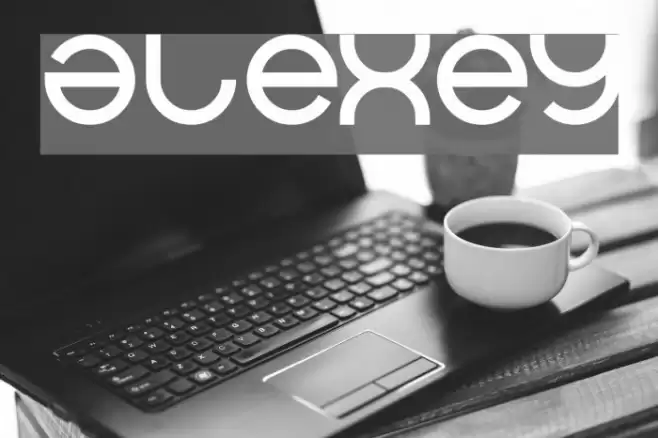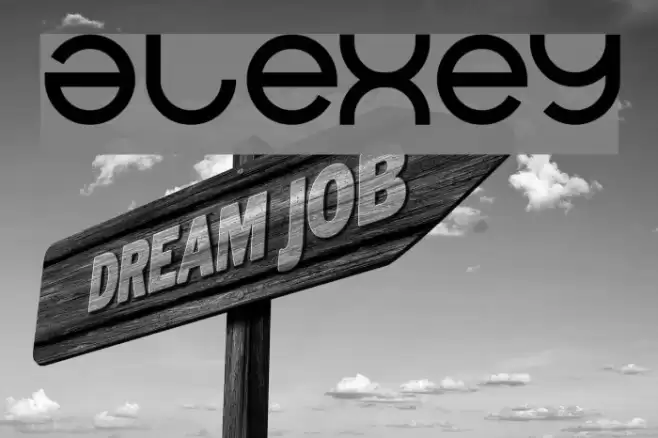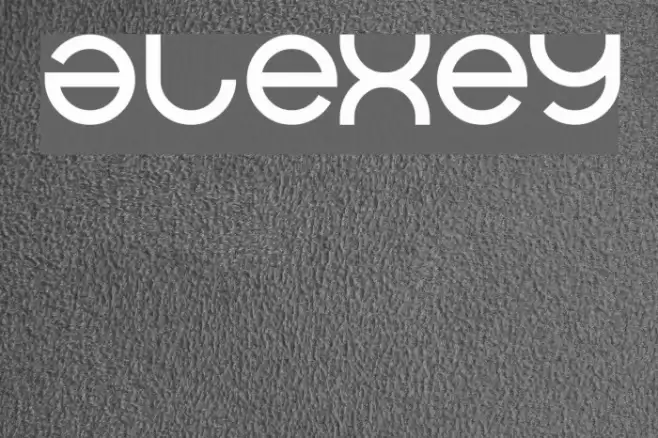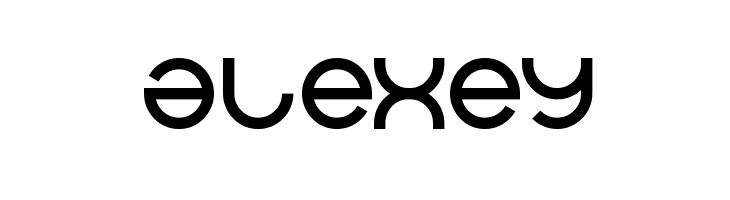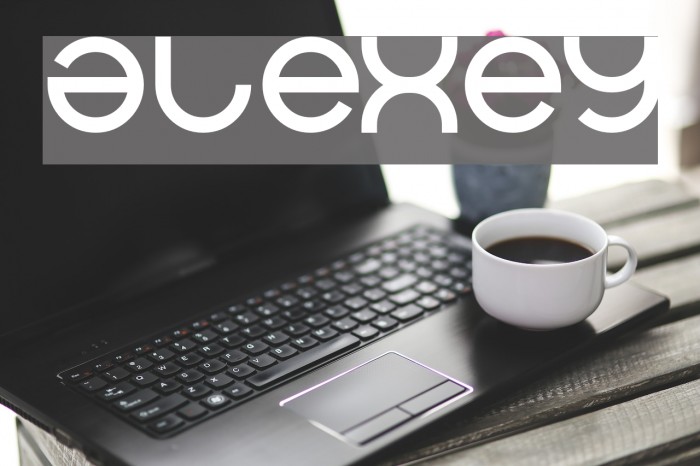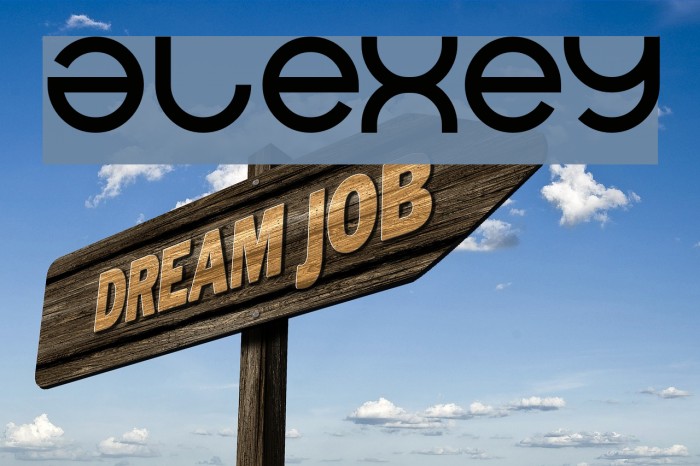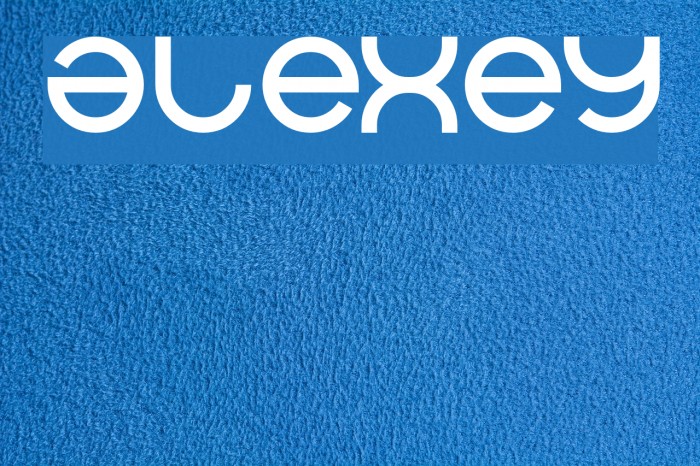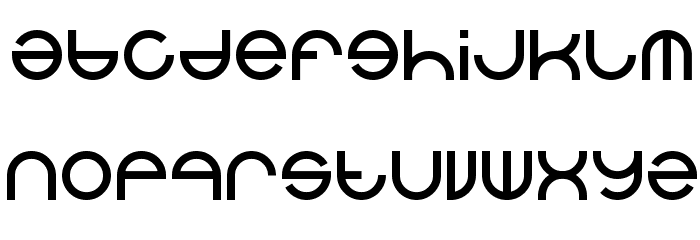
alexey Font
alexey Description
This font features a modern, geometric design with a futuristic flair. Each character is crafted with smooth, continuous lines and rounded edges, creating a sleek and cohesive look. The uniformity in the design gives it a clean and minimalist appearance, while the unique shapes of the letters add a touch of creativity and innovation. The font maintains a consistent weight throughout, providing a balanced and harmonious visual experience. Its distinct style makes it stand out, yet it remains highly legible, making it suitable for various applications.
A modern, geometric font with smooth lines and a futuristic style from Uncategorized fonts.
- Proposed Projects: Ideal for tech branding, futuristic designs, digital media, and modern advertising.
- Overall Style: Futuristic, Geometric
- Use Case: Logos, Headlines, Digital Media